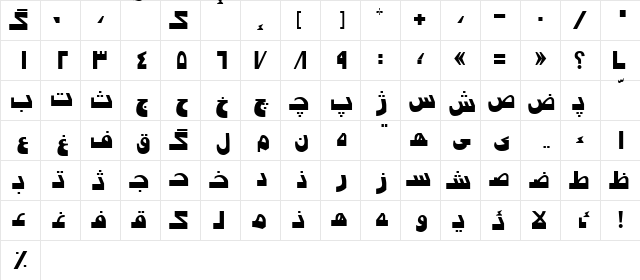
Persian7ModernSSK Regular
Design Context for Persian7ModernSSK Typeface
Persian7ModernSSK is a composed and adaptable typeface that performs quietly and consistently across a wide range of design contexts.